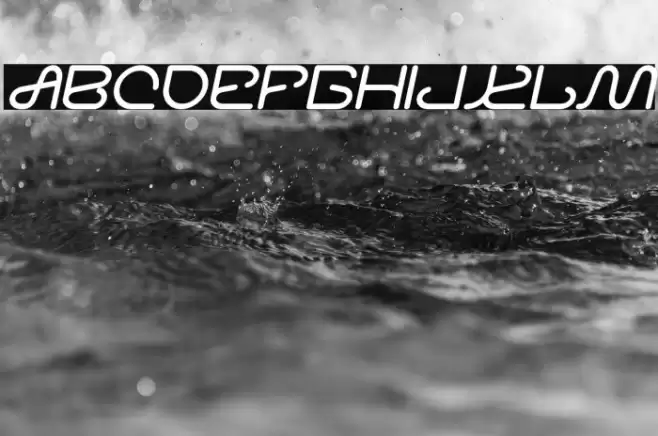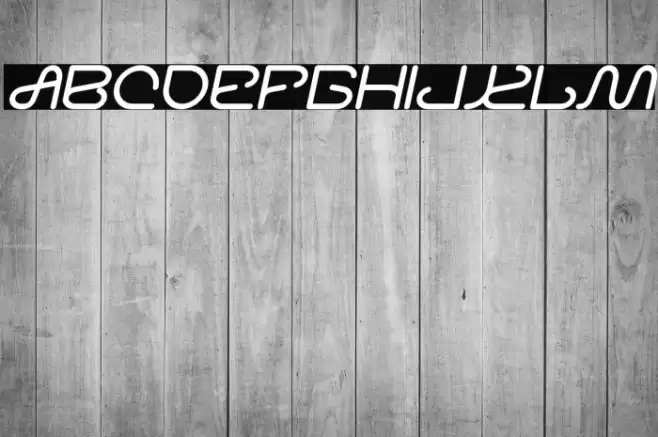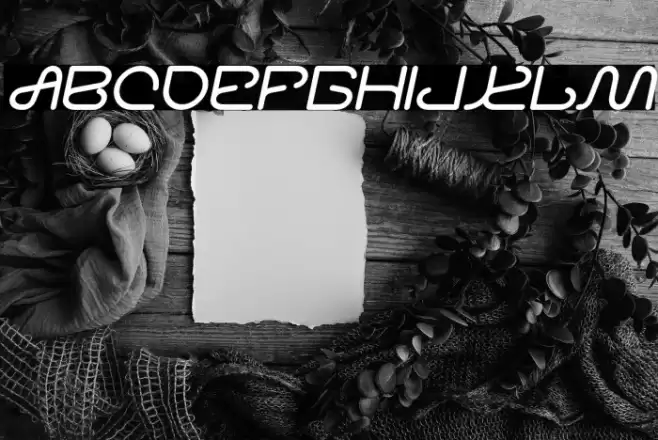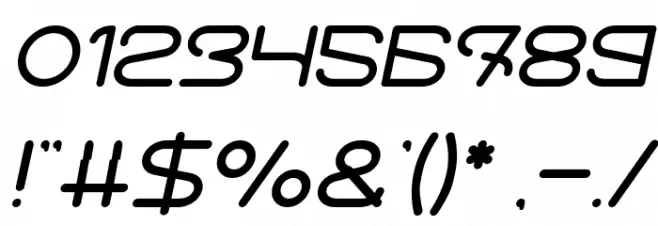
Letting The Cabble Sleep Italic Font
Letting The Cabble Sleep Italic Description
This font features a unique, flowing design with rounded edges and a consistent stroke width, giving it a modern and playful appearance. The characters are connected with smooth curves, creating a sense of movement and fluidity. Its italic style adds a dynamic and informal touch, making it suitable for creative and casual contexts. The font maintains legibility while offering a distinctive look that stands out in various applications. The numerals and special characters are designed to match the overall aesthetic, ensuring a cohesive appearance across all text elements.
A modern, playful italic font with smooth curves and rounded edges from Uncategorized fonts.
- Font: Letting The Cabble Sleep Italic
- Proposed Projects: Ideal for creative projects, branding, posters, and informal invitations.